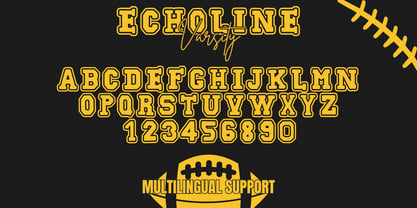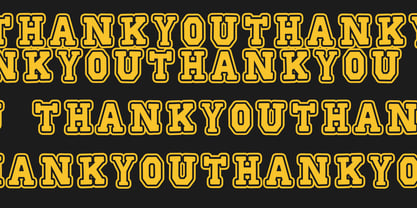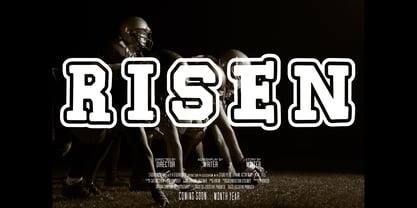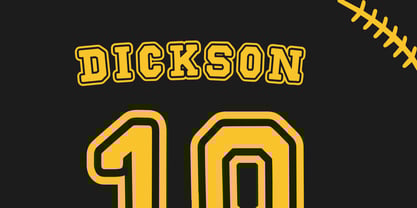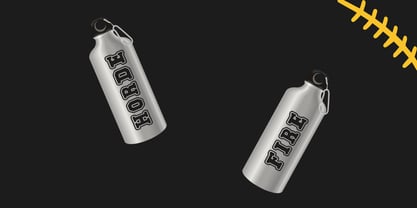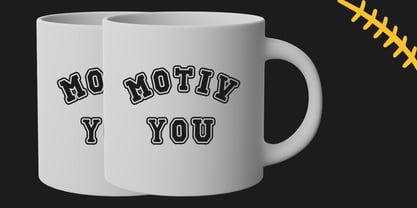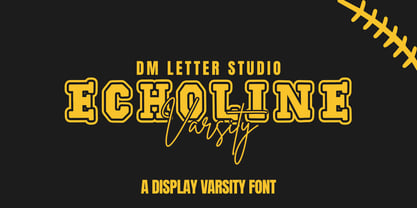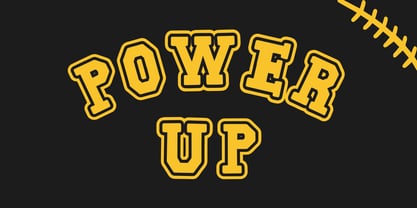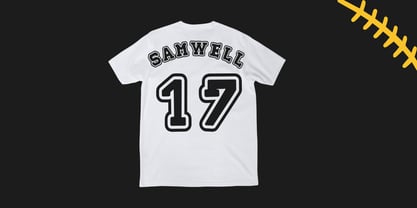
Echoline Varsity
The Echoline Varsity Font Family was designed by Dimas Prasetyo and published by DM Studio. Echoline Varsity contains 1 styles.
Where Retro Sports Meets Stylish Script – Make Your Designs Win Big!
Echoline Varsity is a bold and energetic sports font that brings a retro varsity style with a modern twist. This dynamic college font is a unique blend of blocky varsity lettering and soft hand-drawn flair, making it perfect for creating standout designs with a nostalgic yet fresh vibe. Whether you're designing for team jerseys, school spirit posters, or trendy streetwear branding, Echoline Varsity delivers the winning look.
Designed with clean lines and bold strokes, this varsity font is ideal for high-impact typography on logos, merchandise, event banners, and digital designs. Its nostalgic feel takes inspiration from classic 90s varsity aesthetics, while its smooth edges and brush-style touches add a fun, modern edge that fits perfectly in today’s design trends.
Font Features:
• Uppercase display with bold, athletic structure
• Soft brush accents for added character
• Great readability at any size
• Perfect for sportswear, event flyers, and retro branding
Perfect For:
• Logo Design – For sports teams, lifestyle brands, or throwback logos
• Merch & Apparel – Especially youth-focused or school-themed designs
• Editorial Projects – Zines, covers, school yearbooks
• Event Materials – Pep rallies, tournaments, student club flyers
• Streetwear Graphics – Urban and athletic style blends
Let Echoline Varsity bring bold energy and retro charm to your creative projects. Perfect for designers who love the look of vintage sports fonts with a soft, handwritten edge.